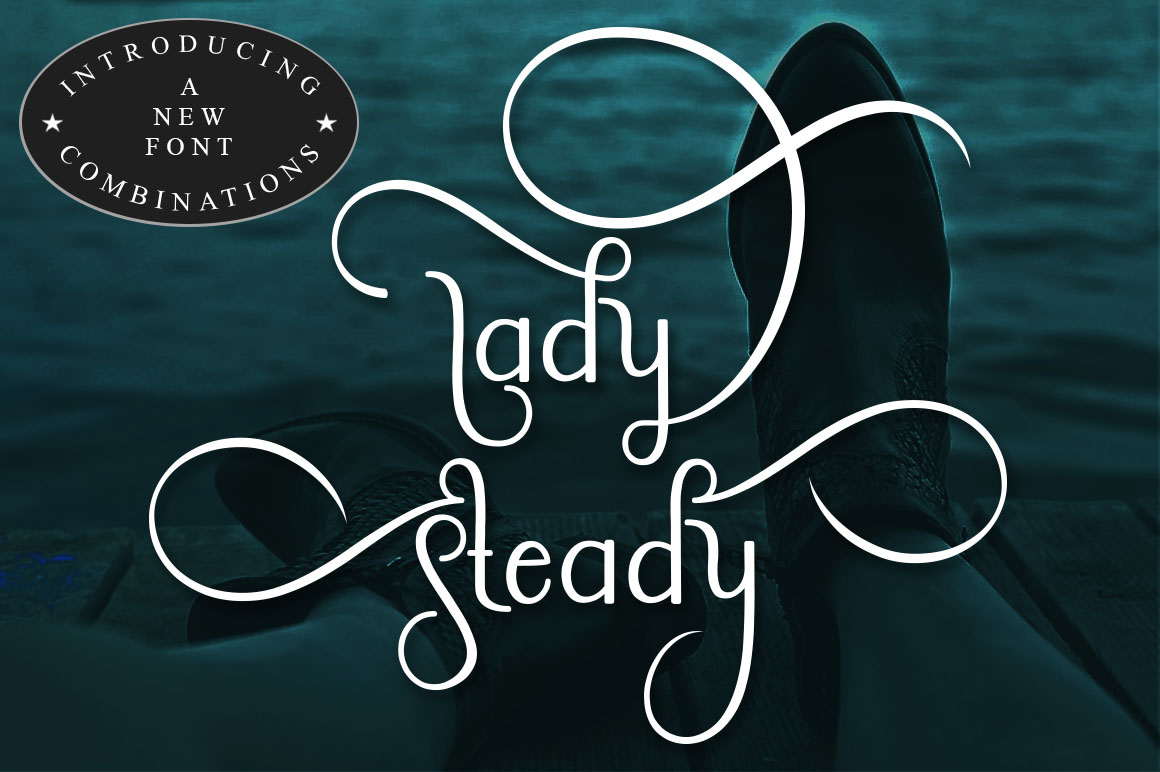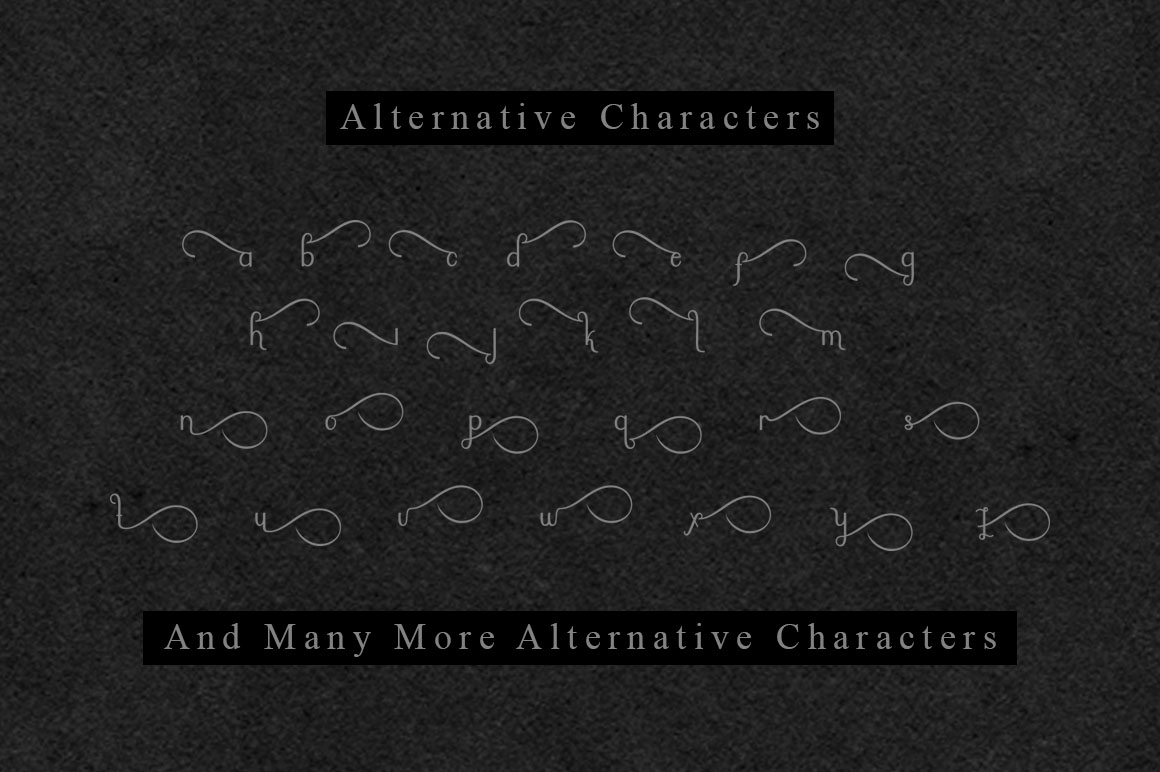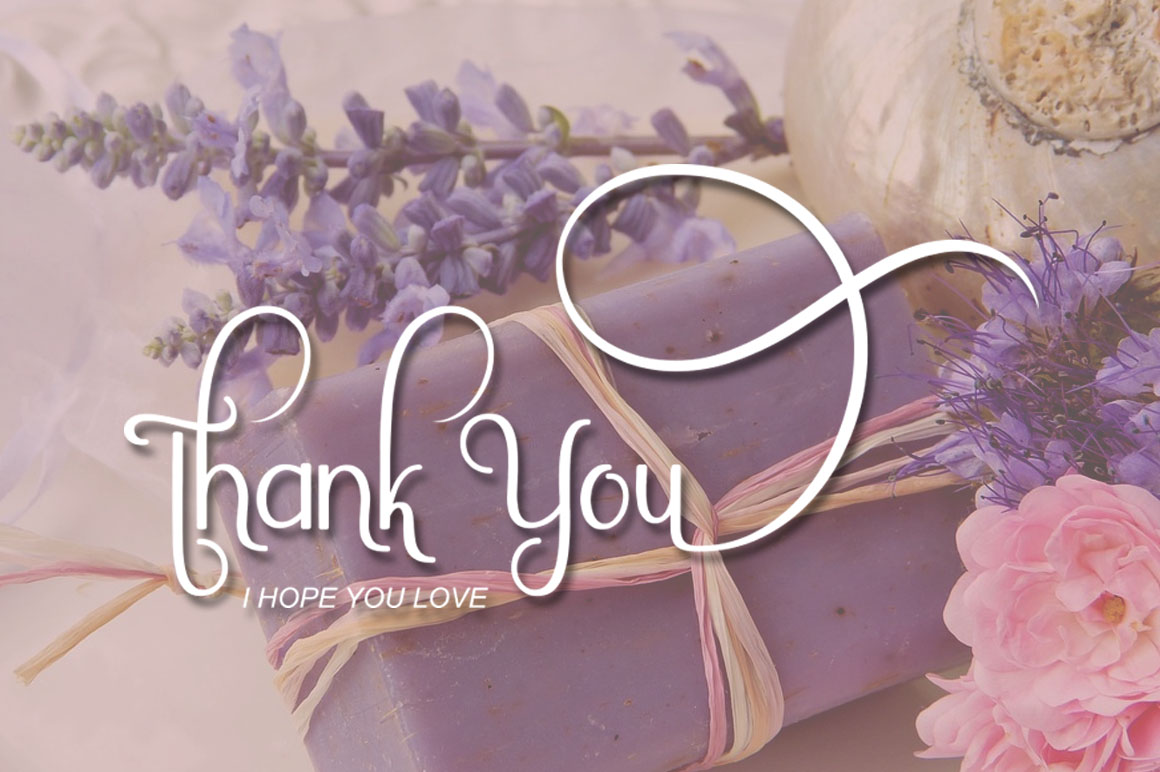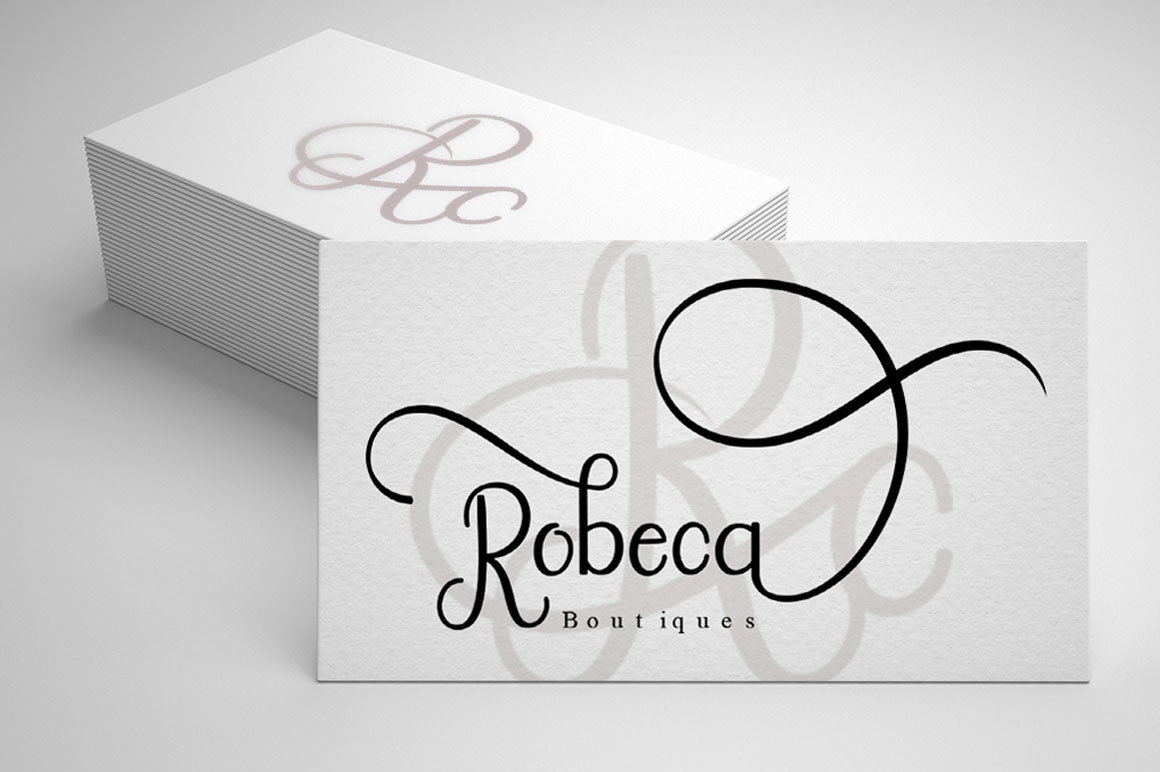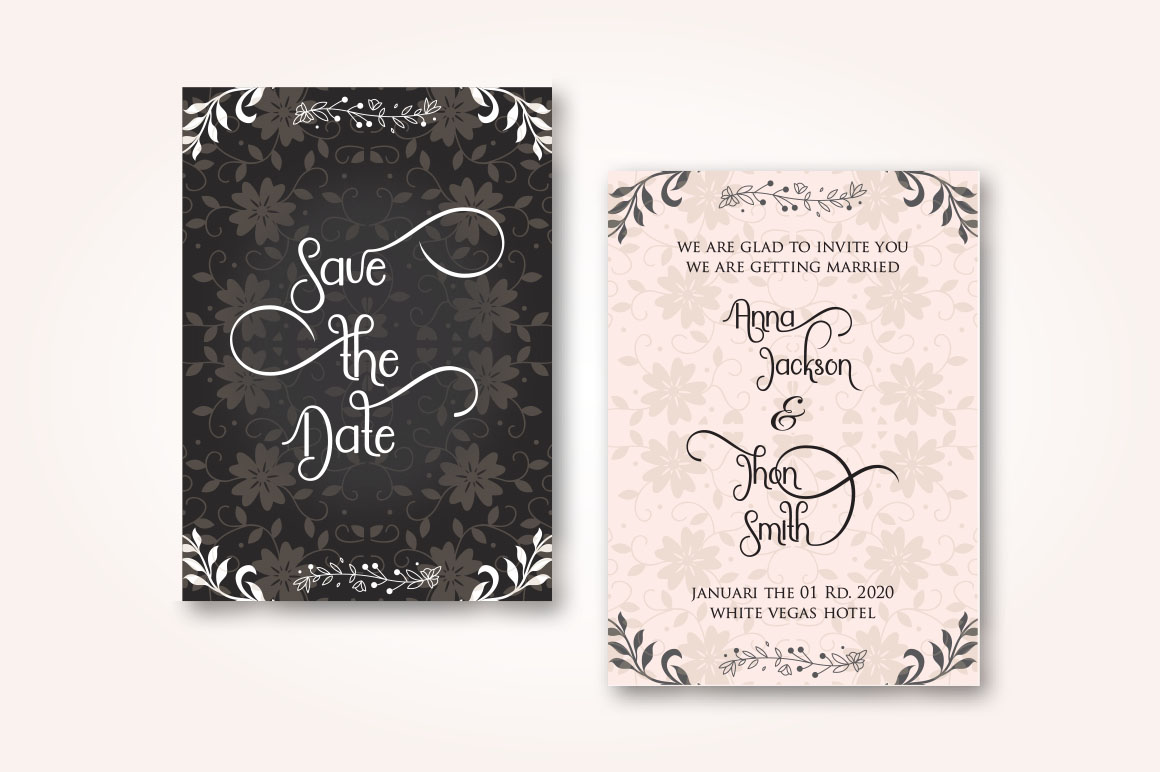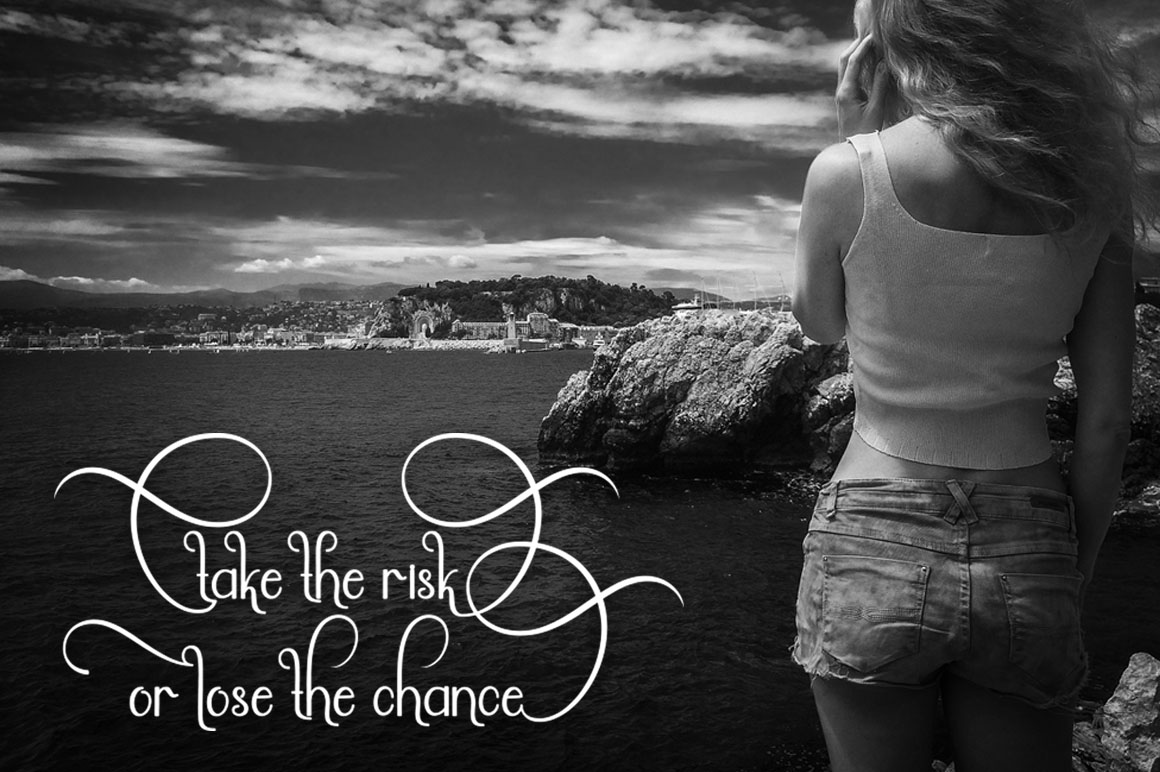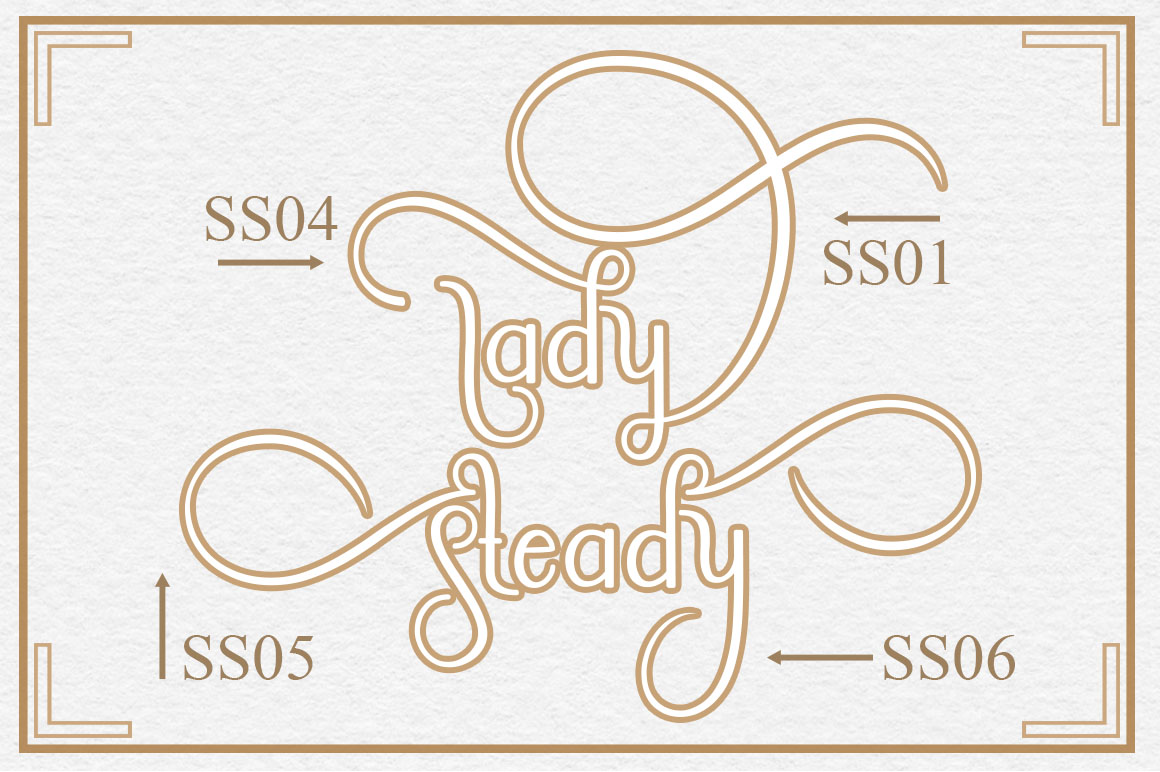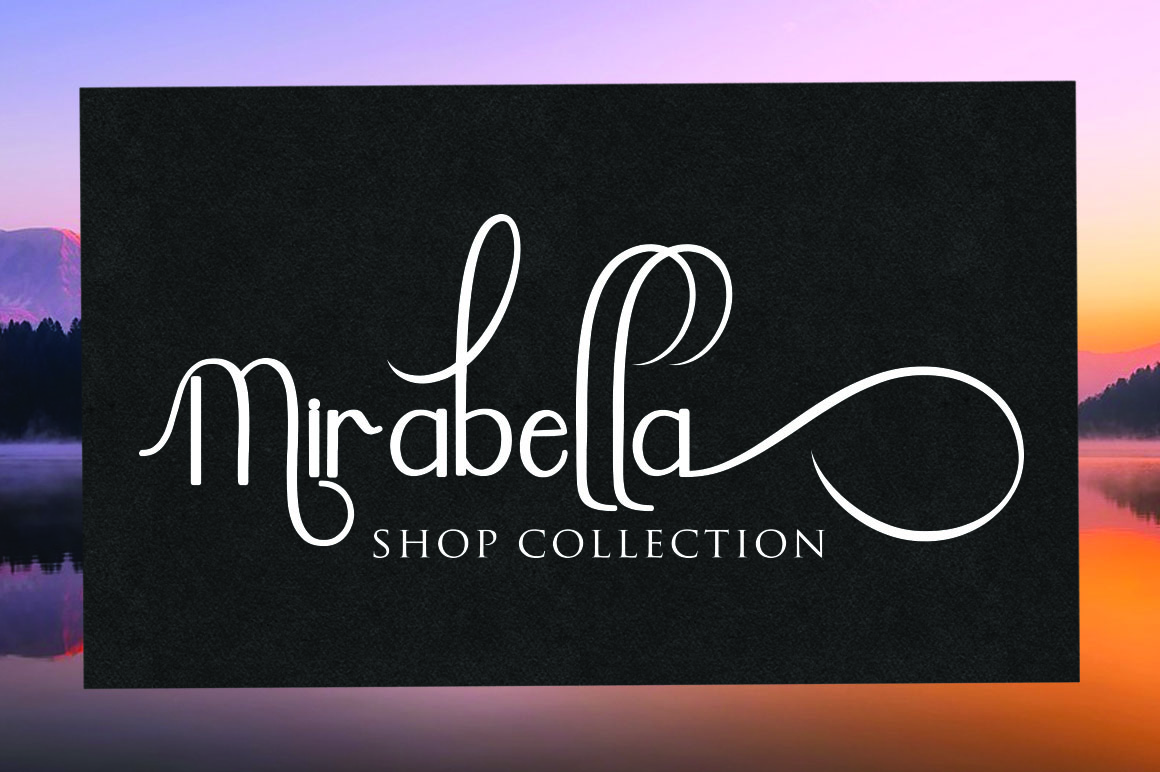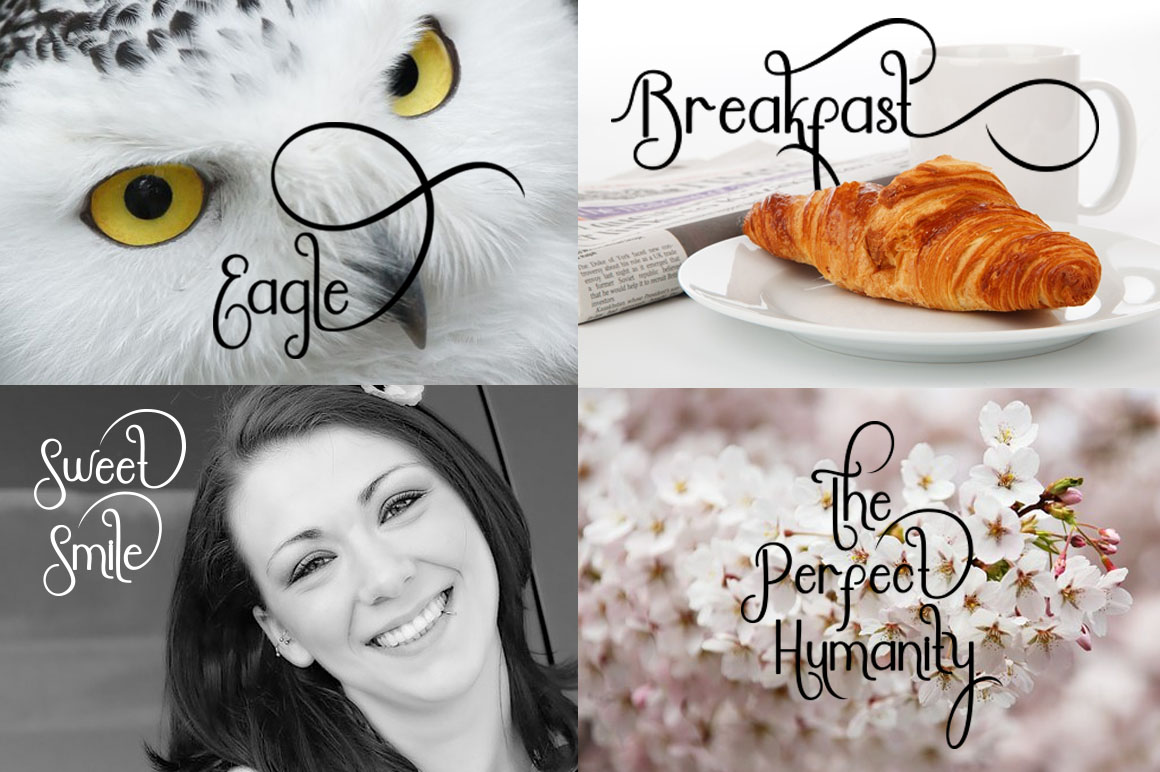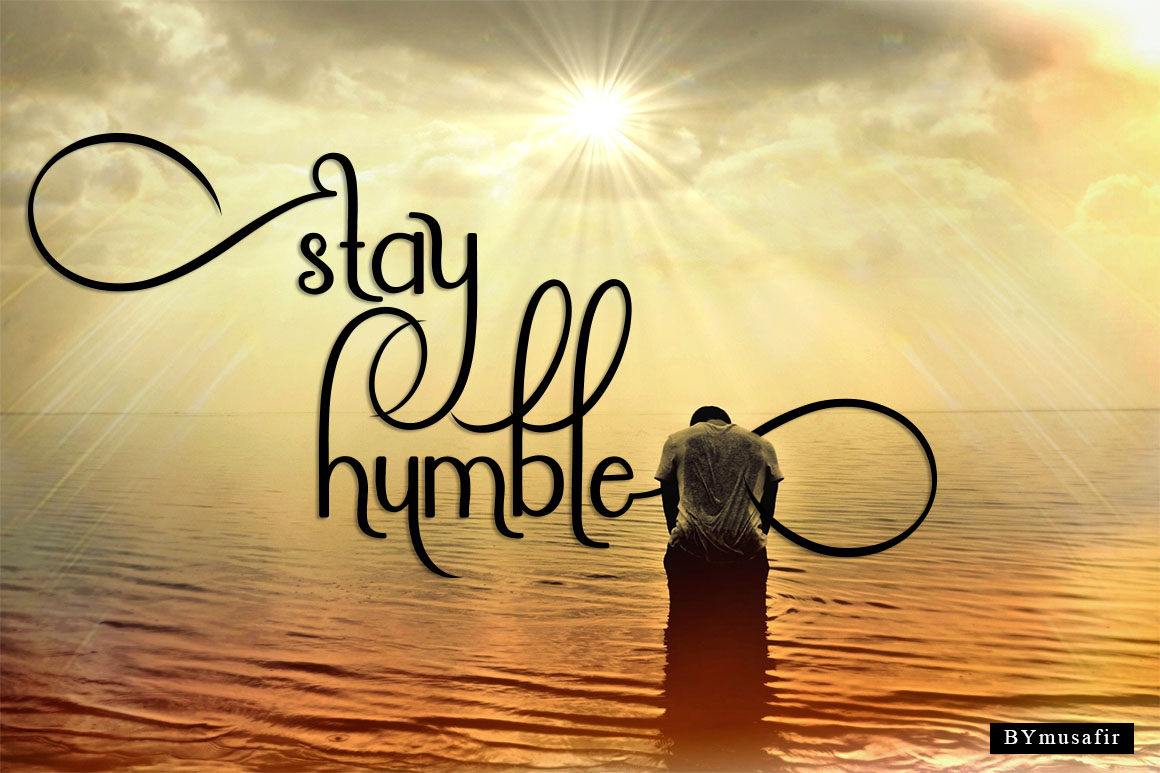
Lady Steady Font
About Lady Steady Font
Lady Steady is a new, unique font that encompasses a stunning blend of classic and modern design. This font is feminine yet legible, and perfect for a large range of projects.